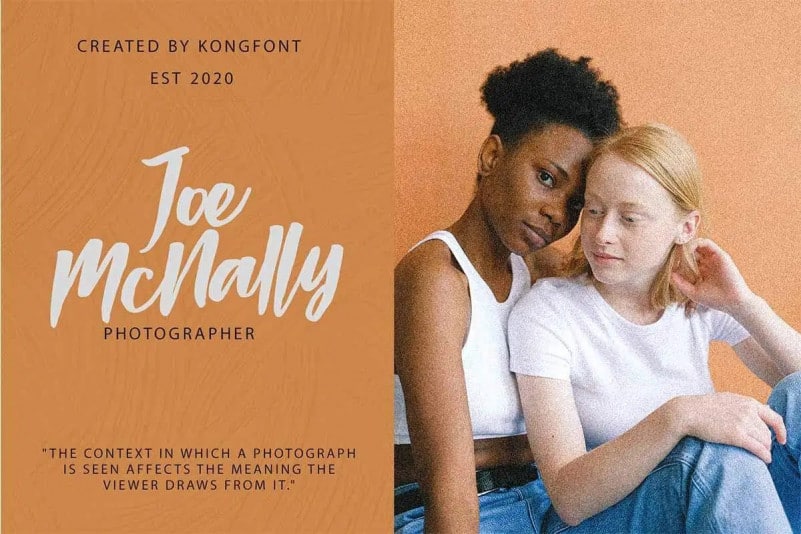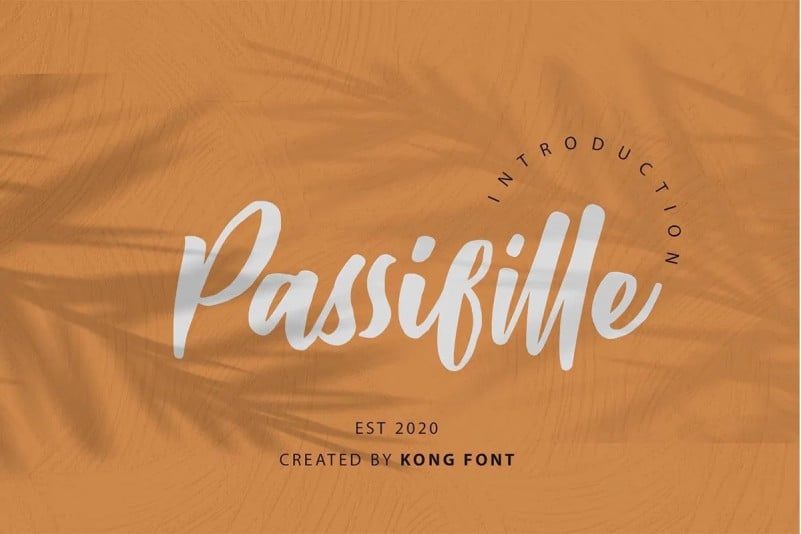
Introducing Passifille Script Font is a modern look of Script typeface, can make your text appear elegant, luxurious, and modern!
Passifille is perfect for branding projects, logo, wedding designs, social media posts, advertisements, product packaging, T-shirt design, product designs, label, photography, watermark, invitation, stationery, and any projects.